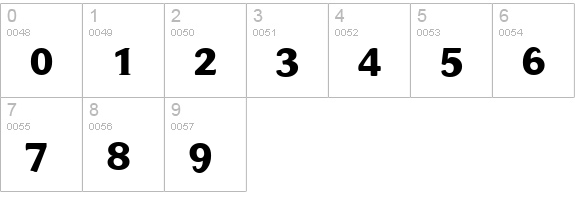
Ephesus Font Details
Ephesus font is a stylish and elegant typeface that exudes sophistication and charm. With its graceful curves and distinctive letterforms, Ephesus is perfect for adding a touch of class to any design project. This versatile font is suitable for a wide range of applications, from branding and packaging to invitations and social media graphics. What sets Ephesus font apart is not only its timeless appeal but also the fact that it is available for free download at FontsMarket.com. Yes, you read that right – you can get your hands on this beautiful font without spending a dime. So why wait? Give your designs a touch of elegance with Ephesus font today!